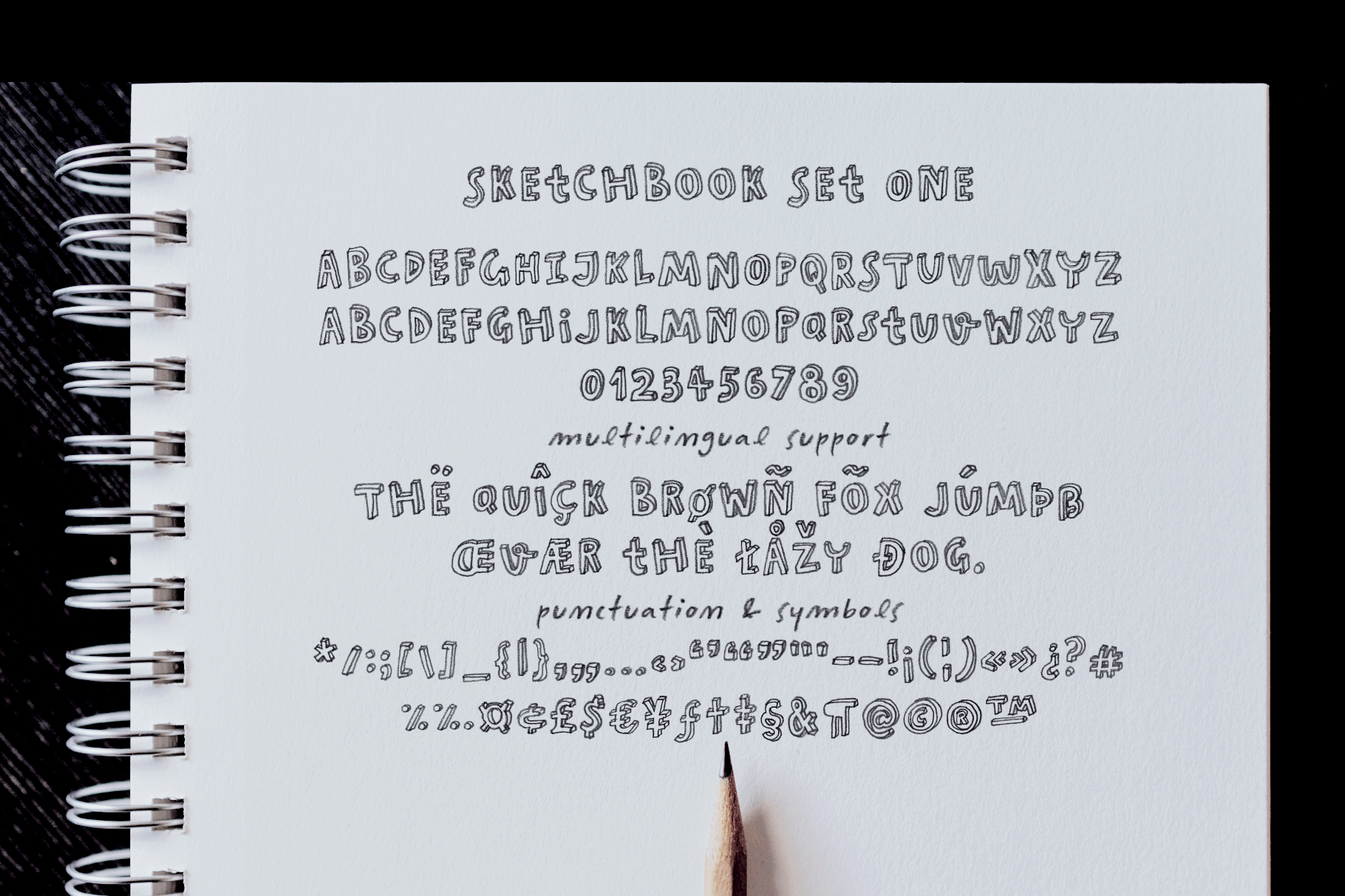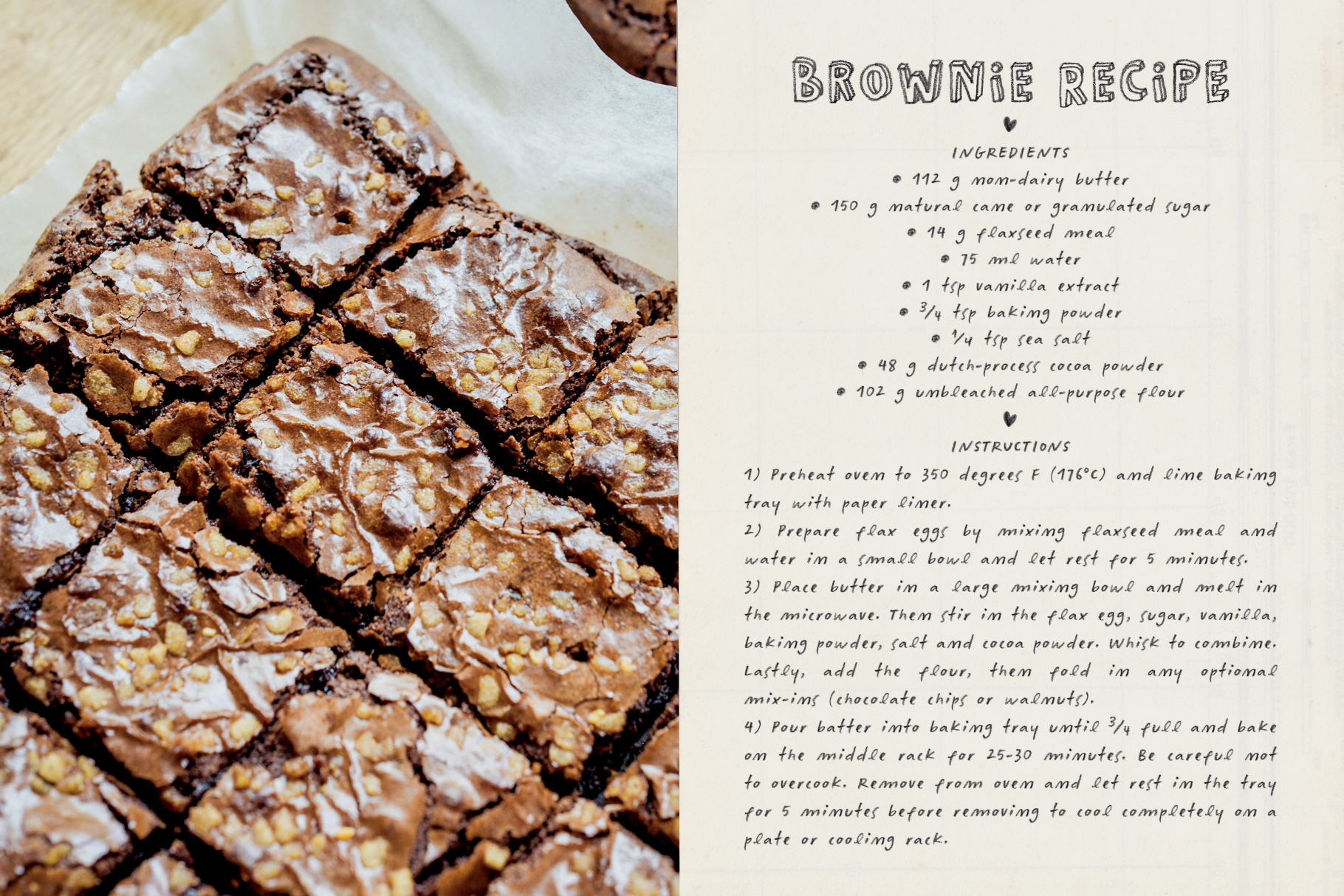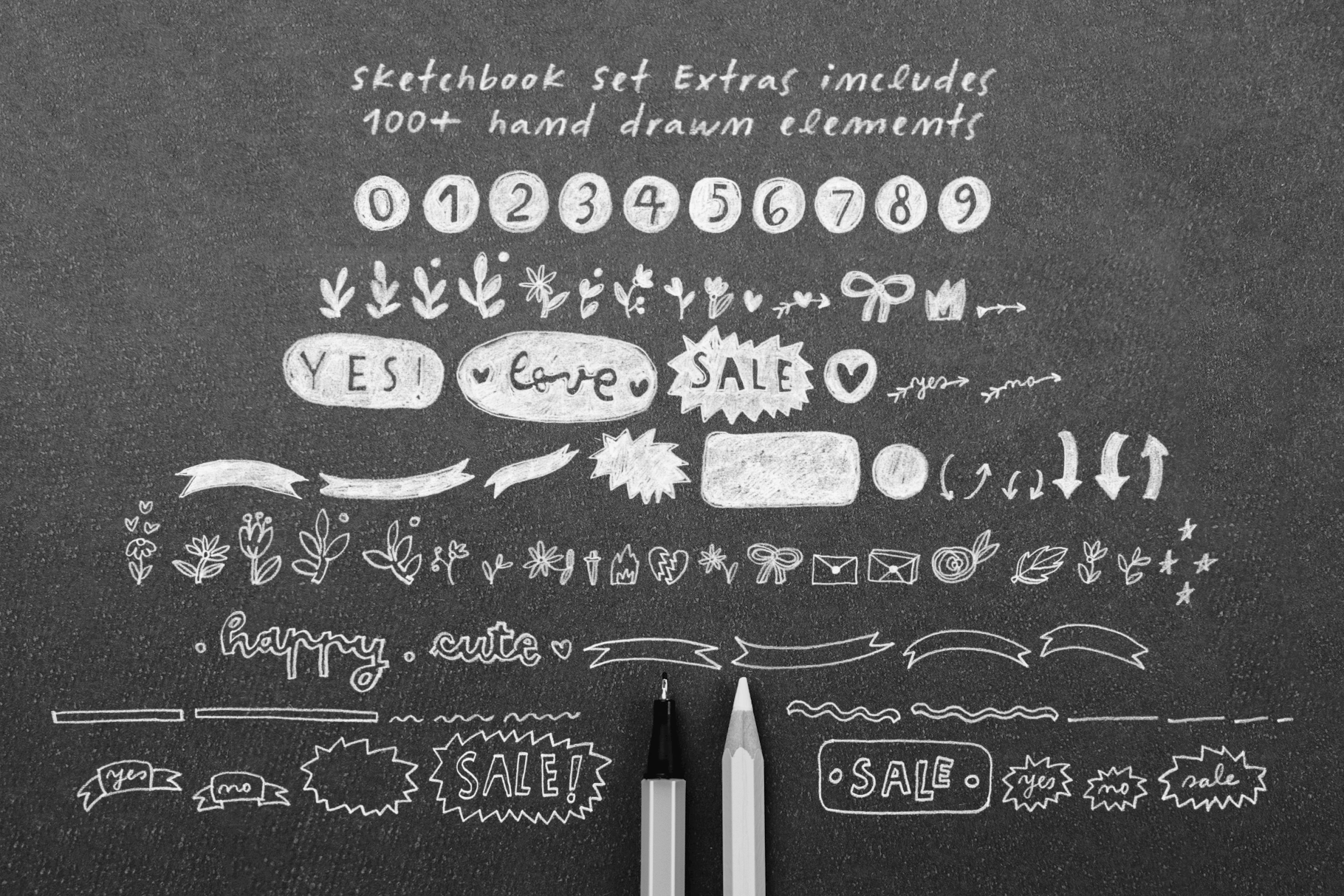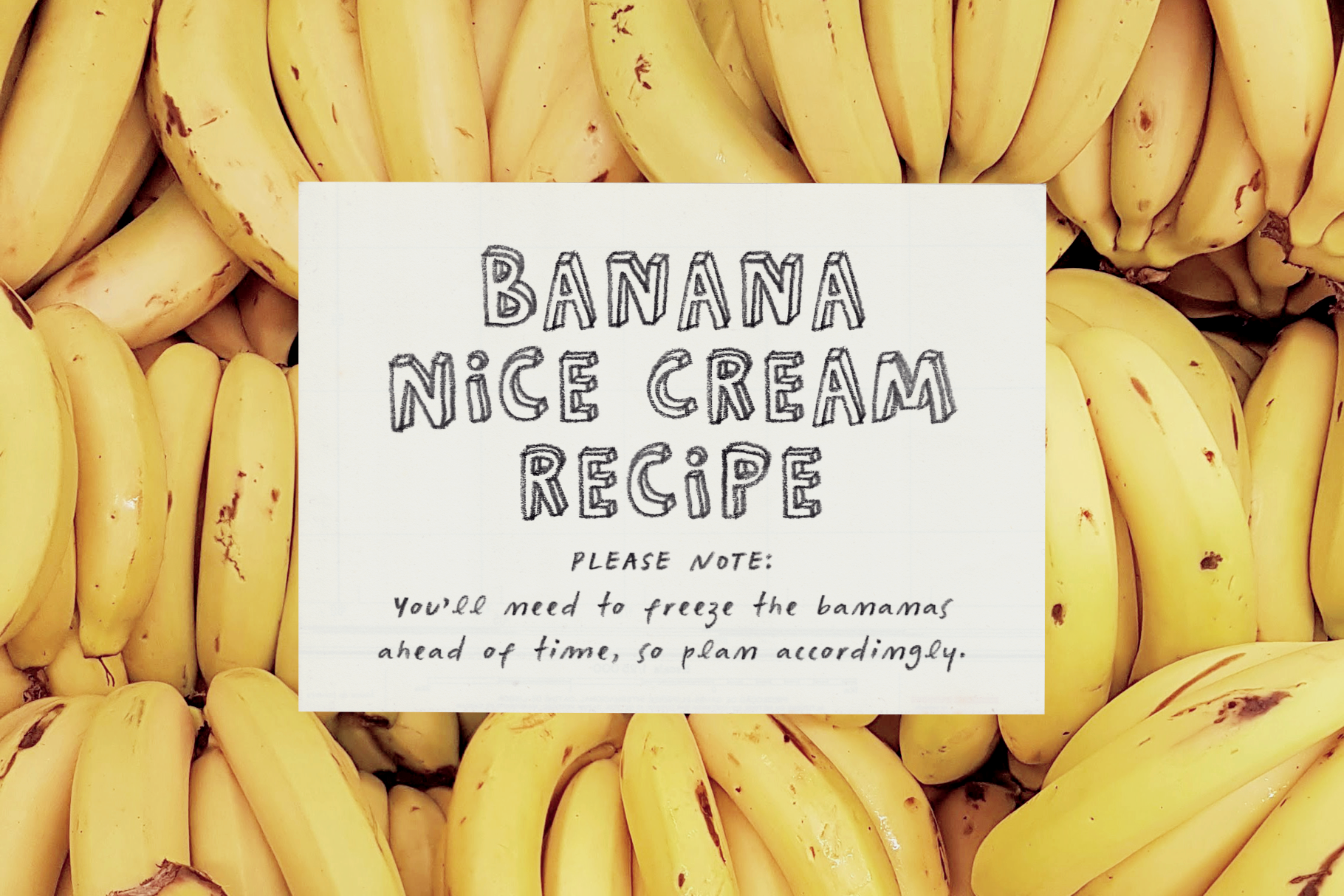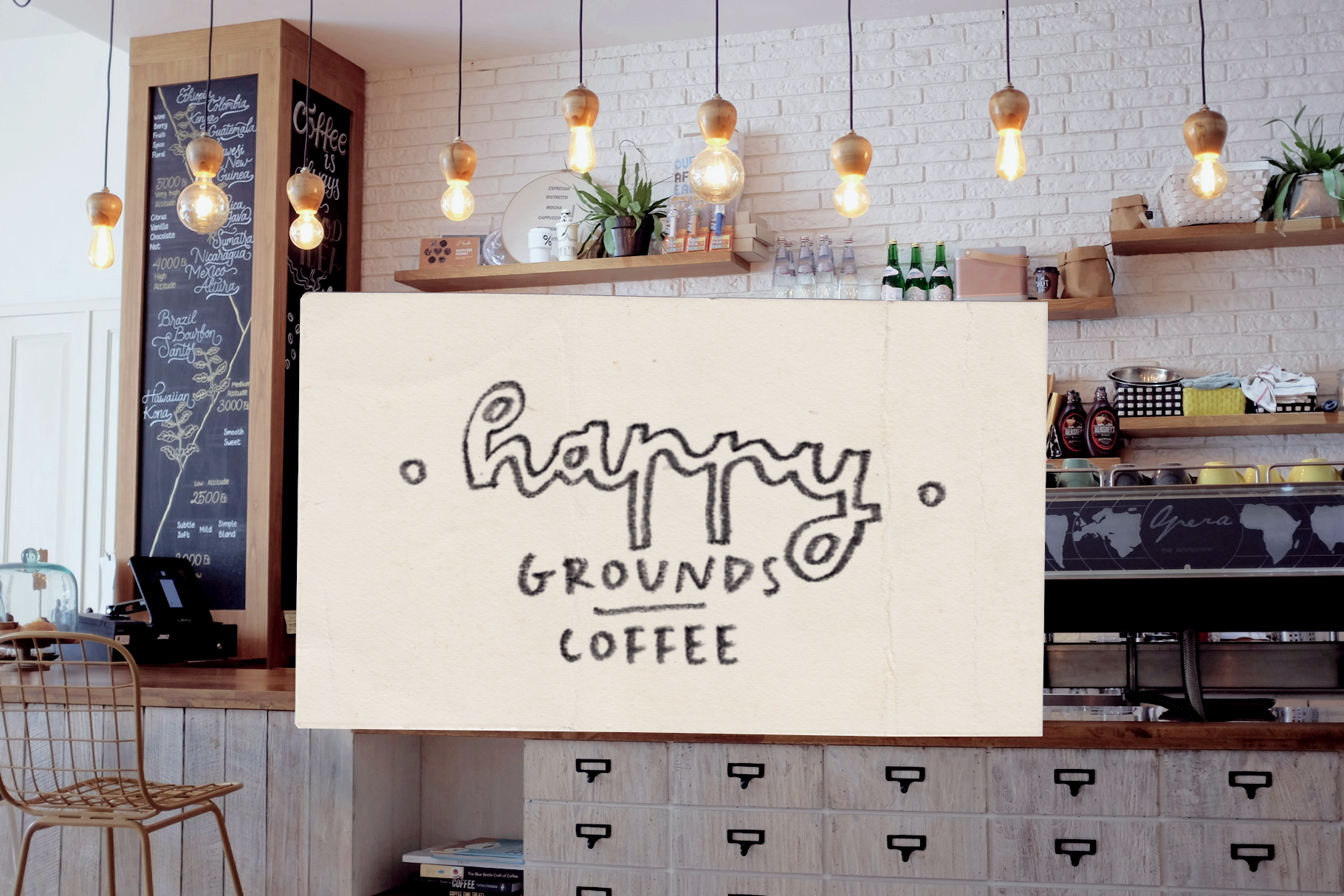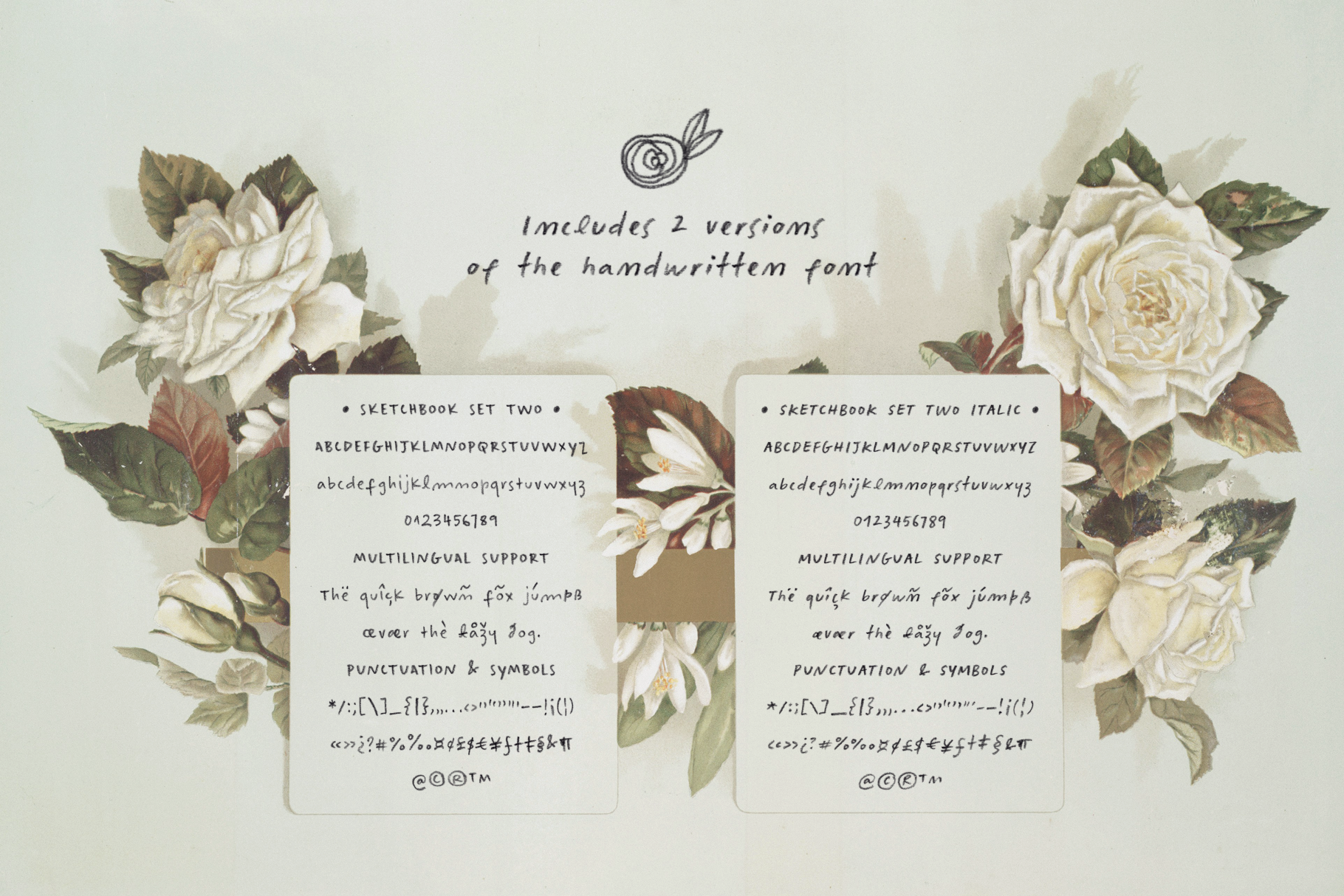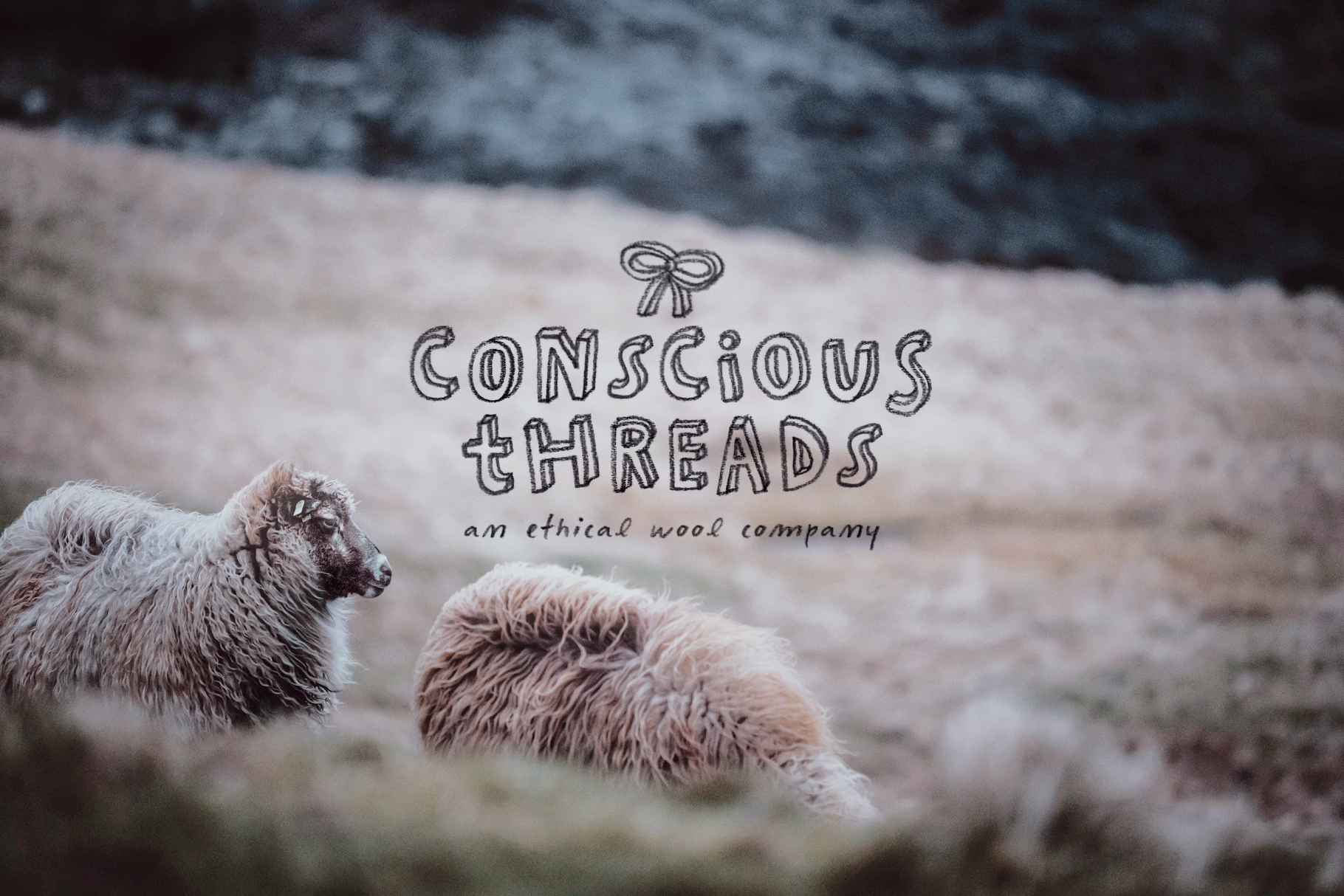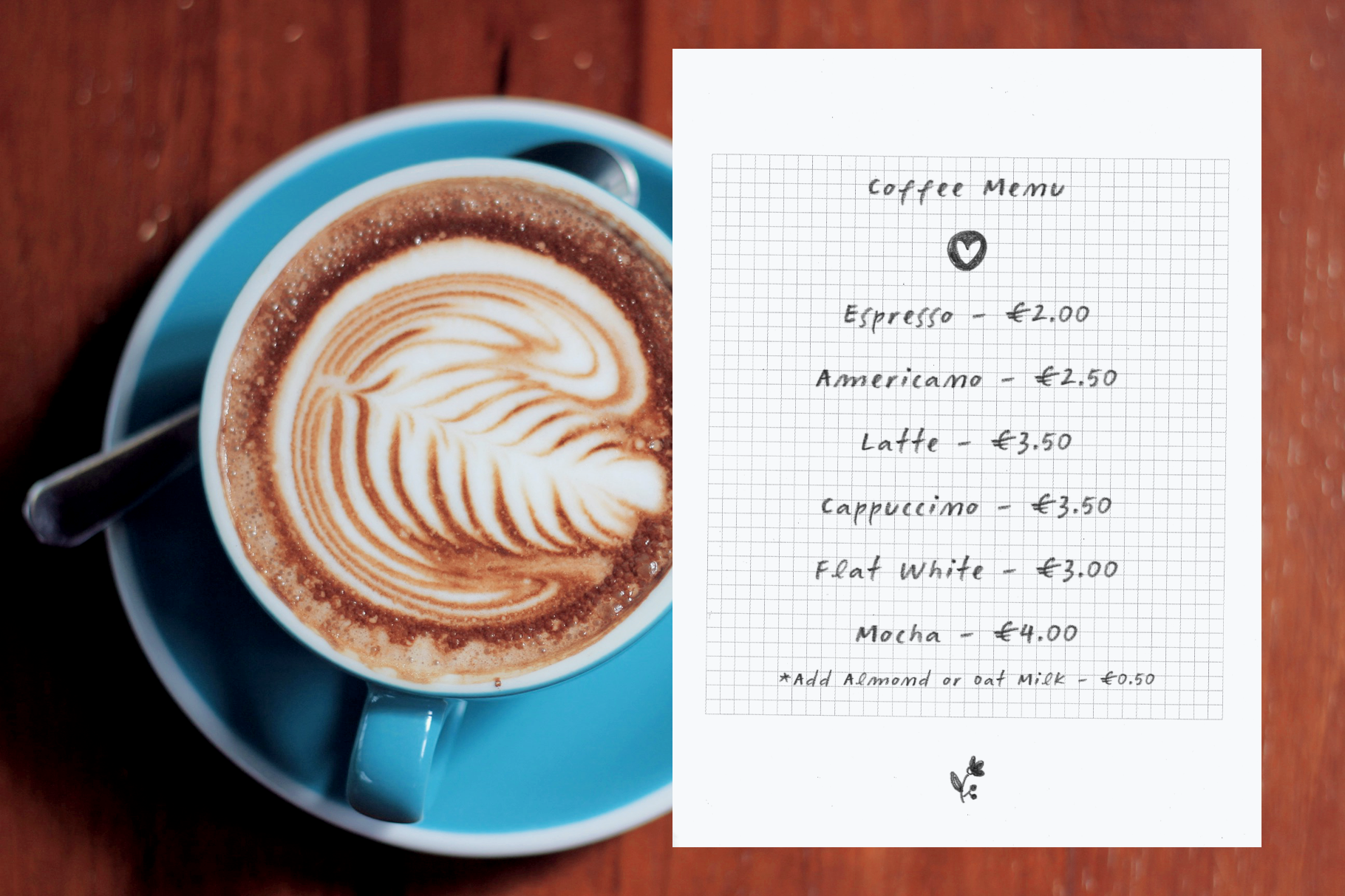
Bring your designs to life with the Sketchbook Set Font Collection, a versatile and creative font bundle perfect for adding a hand-drawn, artistic touch to any project. Designed with attention to detail, this collection is a must-have for designers, illustrators, and creators who love the charm of pencil and crayon textures.
Included in the Sketchbook Set Font Collection:
Sketchbook Set One is a bold and eye-catching all-caps font that’s perfect for headlines, posters, and impactful designs. Its clean yet hand-drawn look makes it versatile for any project.
Sketchbook Set Two is a handwritten font available in two styles: Regular and Italic. This font has a natural handwritten feel that’s ideal for quotes, invitations, branding, and more.
- Extras Font with Doodles & Text Embellishments
Sketchbook Set Three is a playful font packed with hand-drawn doodles, underlines, words, numbers and arrows. Add charming details to your designs effortlessly.
Each font in the collection includes meticulously crafted SVG versions that capture the authentic pencil and crayon textures of the original artwork. For added flexibility, vector versions ensure you can scale your designs without losing detail and use the font in applications that don't have SVG support.
This font collection is not just a tool—it’s an inspiration. The textured details and organic feel of the fonts add a layer of authenticity to your designs. Whether you’re creating digital artwork, print materials, or crafting an unforgettable logo, the Sketchbook Set Font Collection will make your work stand out.